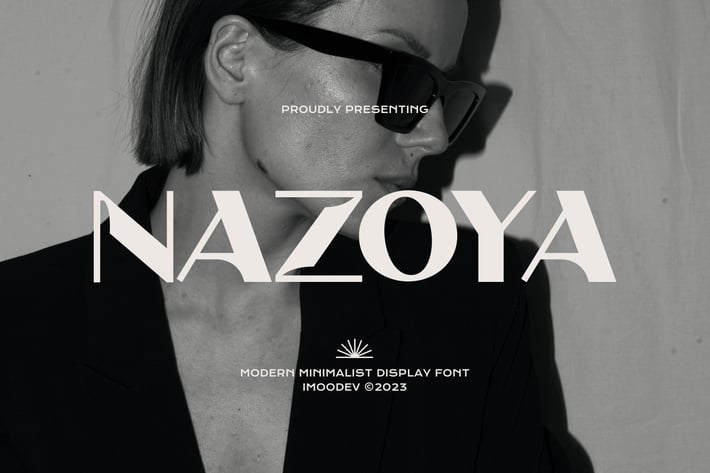
Nazoya - Modern Minimalist Display Font
The 'Nazoya' a bold, modern sans-serif style that conveys a contemporary and stylish aesthetic with distinctively sharp cuts and curves.
This font has a blend of modern and classical qualities, making it suitable for formal, high-impact designs, such as posters, branding, editorial, branding, luxury product design, or editorial work for high-end magazines. The minimalistic and bold characteristics make it a striking display font, perfect for logos or headlines where a strong and elegant visual statement is needed.